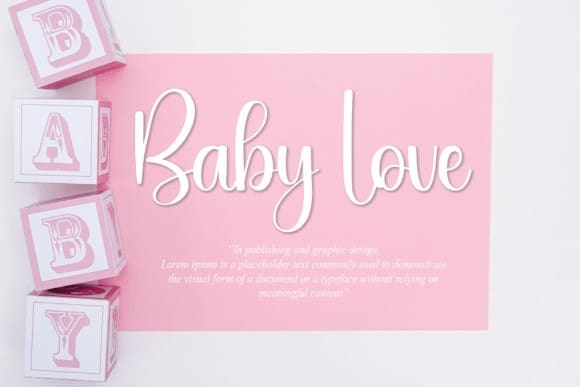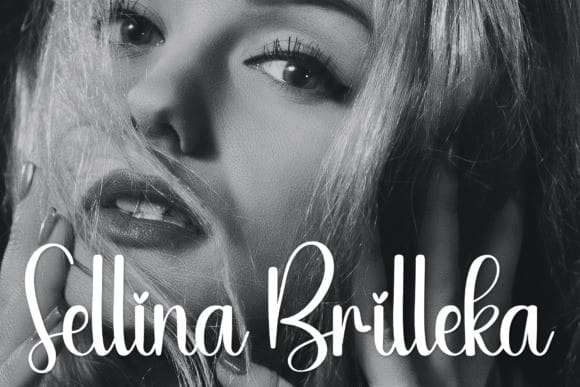
Dry Bakery Font
Dry Bakery Font is a romantic and sweet calligraphy typeface with characters that dance along the baseline. It will add a luxury spark to any design project that you wish to create!